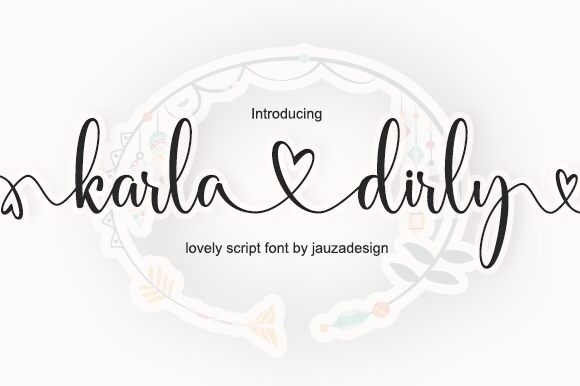
Karla Dirly
Karla Dirly font is a free handwritten font designed by Danar Nugroho with a romantic ambiance. The elegant construction of this contemporary script with flourished fancy lines makes it sophisticated for any project. The characters have flowing and harmonic letters that make writing vivid and enjoyable.
Karla Dirly is useful for branding, labels, product packaging, books, weddings, quotes, stationery designs (cards / invitations), magazines headings and covers.